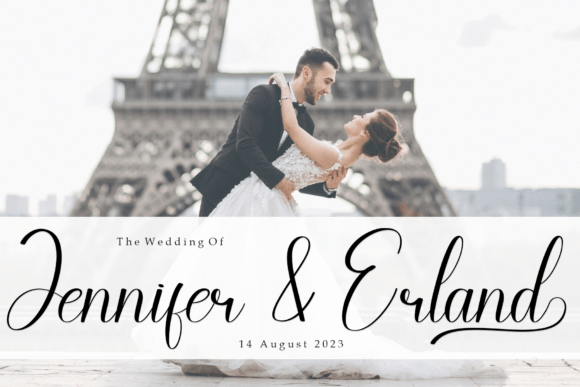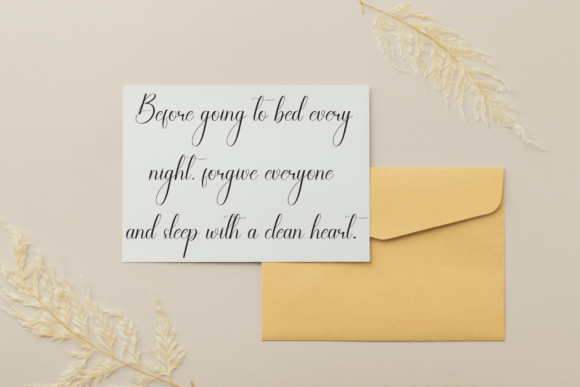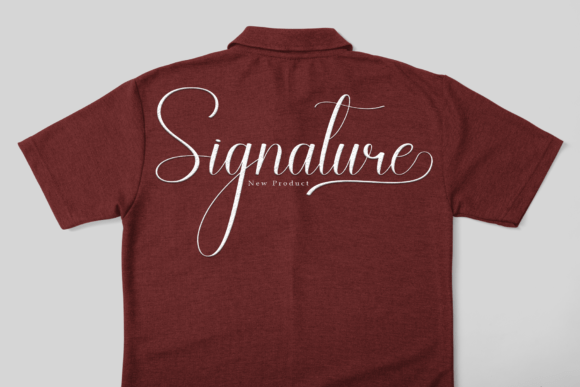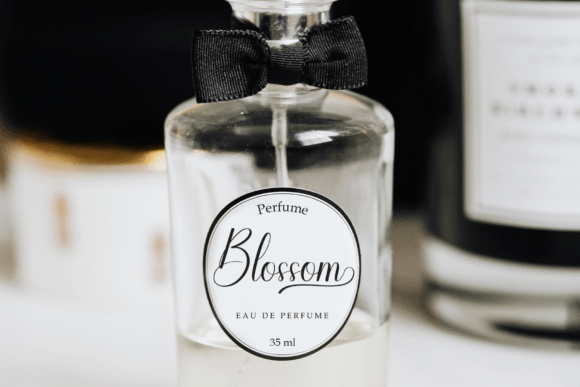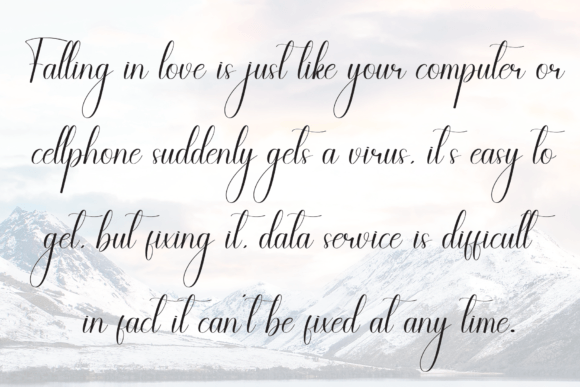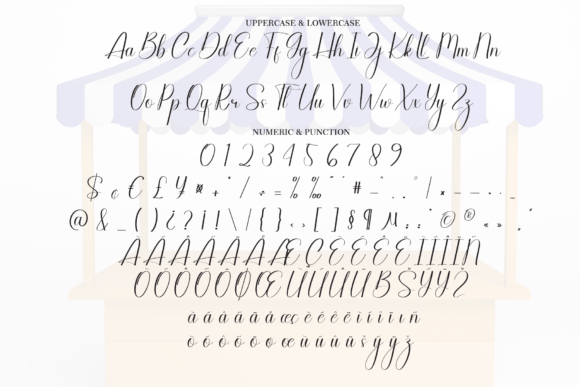
Introducing Booth Font: The Friendly and Lovely Handwritten Font for Your Creative Projects
Are you a designer, crafter, or DIY enthusiast looking for a font that can add a personal touch to your projects? Look no further than Booth Font, a beautiful handwritten font designed to bring a friendly and lovely feel to your creations. In this article, we’ll explore the features and benefits of Booth Font, and how it can elevate your designs, from diary planners and journals to wedding invitations, party decorations, and more.
A Friendly and Lovely Style
Booth Font is a carefully crafted handwritten font that exudes warmth and approachability. Its friendly and lovely style makes it perfect for projects that require a personal touch, such as diary planners, journals, and greeting cards. The font’s smooth and flowing lines create a sense of elegance and sophistication, making it suitable for more formal projects like wedding invitations and party decorations.
Perfect for Everyday Use
One of the best things about Booth Font is its versatility. It’s designed to be used every day, making it an excellent addition to your font library. Whether you’re creating a daily planner, a journal, or a social media post, Booth Font is the perfect choice. Its friendly and approachable style will add a touch of warmth and personality to your designs, making them more engaging and relatable.
Ideal for Various Projects
Booth Font is not just limited to diary planners and journals. Its versatility makes it suitable for a wide range of projects, including:
• Back to school projects: Create eye-catching posters, invitations, and decorations for the new school year.
• Weddings and parties: Add a personal touch to your wedding invitations, party decorations, and other celebratory materials.
• Festivals and events: Create vibrant and engaging posters, banners, and social media posts for festivals and events.
• Blogs and social media: Use Booth Font to add a friendly and approachable tone to your blog posts and social media updates.
• Clothing and accessories: Create custom designs for clothing, bags, and other accessories that require a personal touch.
• Child-related designs: Design engaging and colorful materials for kids, such as posters, invitations, and activity sheets.
• Greeting cards and invitations: Create beautiful and heartfelt greeting cards and invitations for special occasions.
Encoded PUA Character for Easy Use
Booth Font offers numerous benefits for designers and crafters, including:
• Unique and personalized designs: Booth Font’s friendly and lovely style will help you create unique and personalized designs that stand out from the crowd.
• Versatility: Booth Font is suitable for a wide range of projects, making it an excellent addition to your font library.
• Easy to use: Booth Font is easy to install and use, even for those without extensive design experience.
In conclusion, Booth Font is a beautiful handwritten font that can add a friendly and lovely touch to your designs. Its versatility, easy-to-use encoded PUA character, and unique style make it an excellent addition to your font library. Whether you’re a designer, crafter, or DIY enthusiast, Booth Font is the perfect choice for your creative projects. Download Booth Font today and bring your designs to life!